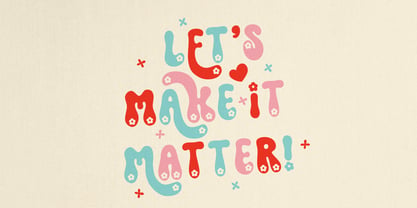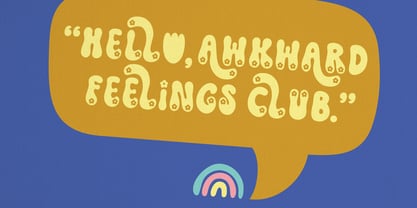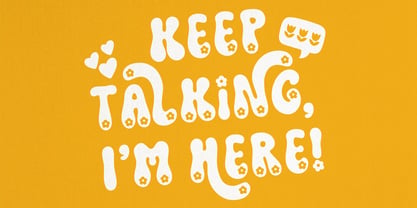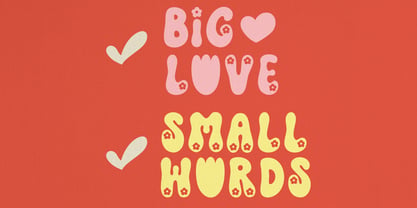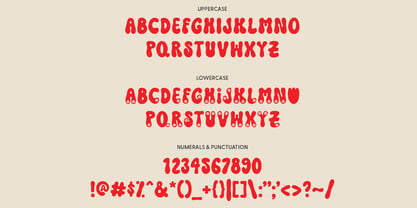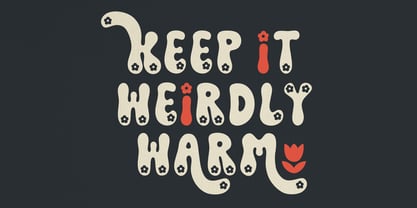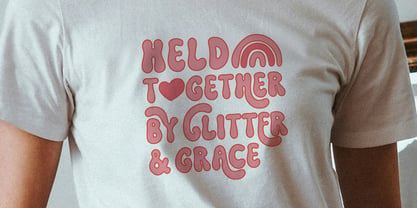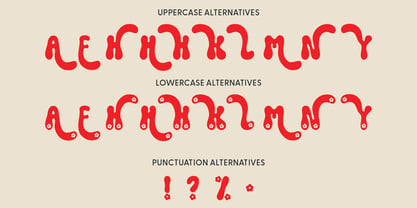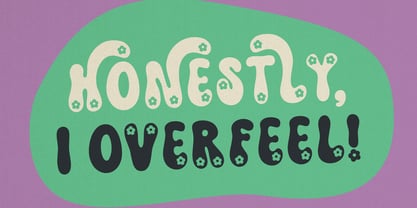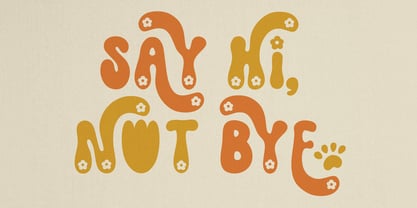
YJC Jelly Jam
Say hello to YJC Jelly Jam — a juicy, joy-filled display font with a wobbly charm and just the right amount of attitude. It’s bold but not bossy, quirky but never chaotic, and made for creatives who want their words to speak (and maybe even sing a little).
Whether you're designing for a heartfelt greeting card or a scroll-stopping social media post, Jelly Jam brings a touch of personality to everything it touches — like a big, bubbly hug in type form.
1. A full set of uppercase and lowercase letters with multilingual support and ligatures
2. Numbers, punctuation, and symbols
Pair it with fun illustrations, use it in bold statements, or let it shine solo — Jelly Jam is here to help you connect, express, and create with heart.